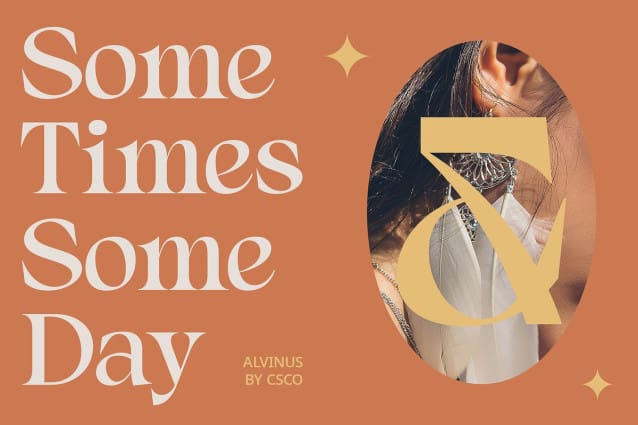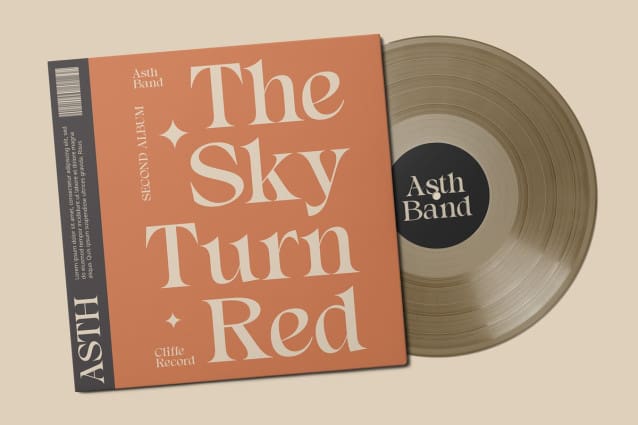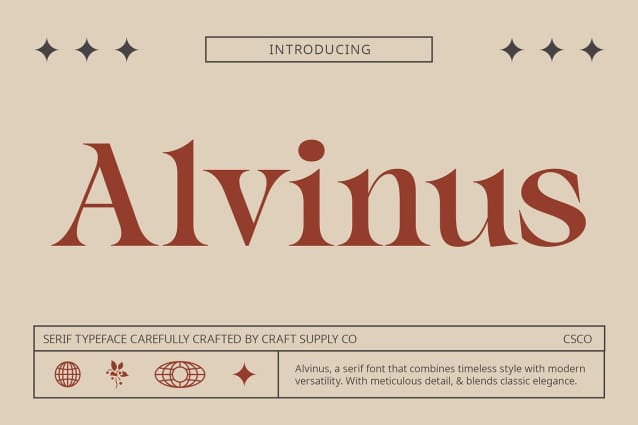
Alvinus Font
Alvinus Font is a modern serif font with an elegant style that exudes beauty and grace in each design. Perfect for professional use, this font adds a refined and sophisticated touch to your projects.
With its sleek lines and graceful curves, Alvinus offers a fresh take on traditional serif fonts. The elegant design creates a captivating and timeless look, ideal for branding, editorial layouts, and other projects that need a touch of sophistication.
Whether you’re designing a corporate presentation or creating a refined business logo, Alvinus Font is sure to make an impression. Its elegant style and modern appeal make it perfect for displays that demand attention and convey a sense of class and professionalism.
Despite its distinctive appearance, Alvinus Font is versatile and easy to use. The font works well in both large and small sizes, making it suitable for a variety of applications, from headlines and banners to body text and more. With its blend of modern design and elegant style, Alvinus adds a captivating and professional touch to any design.